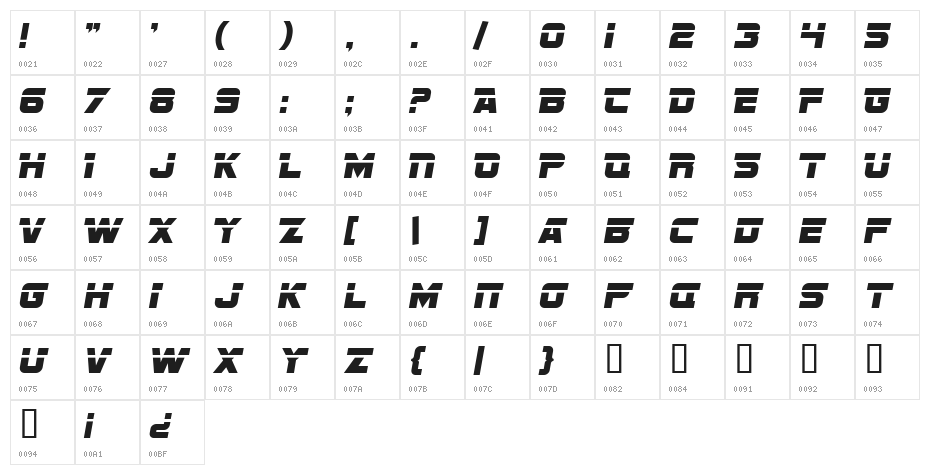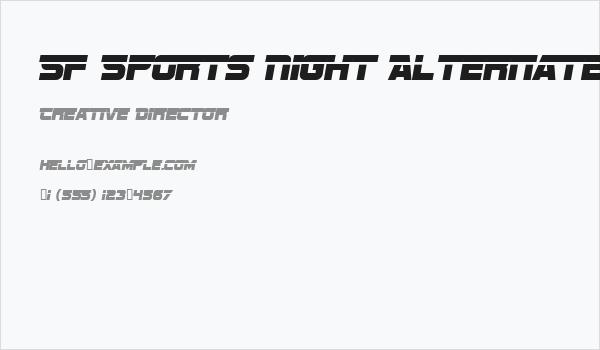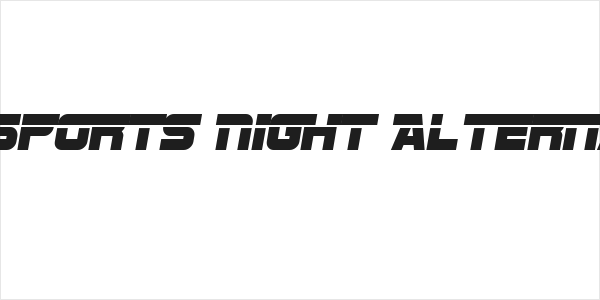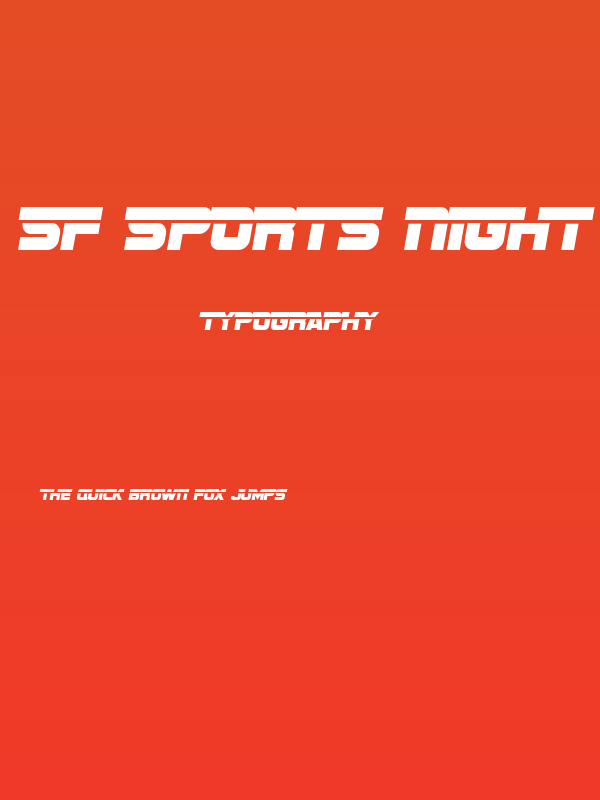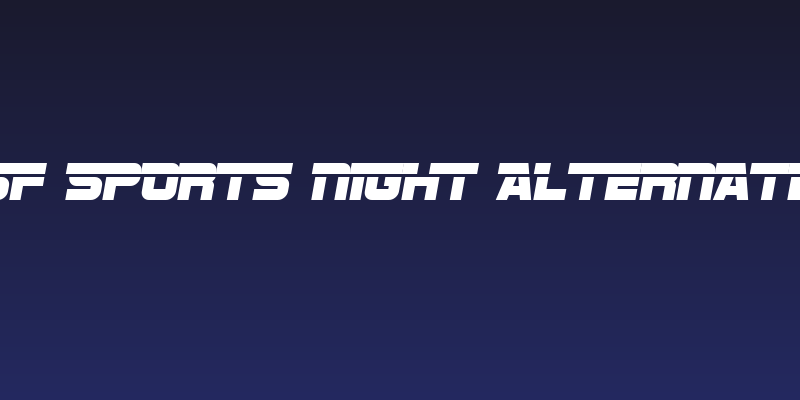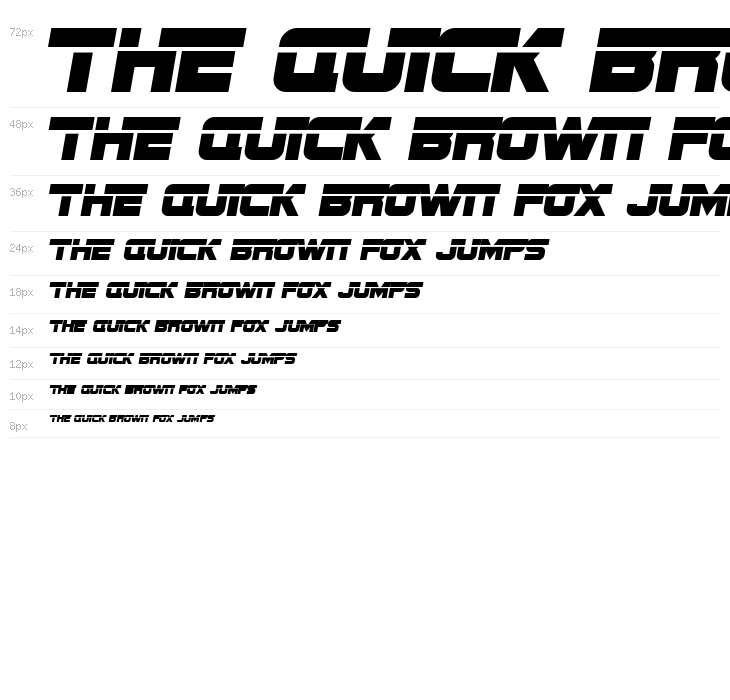
SF Sports Night Alternate Font
SF Sports Night Alternate Description
This font features a bold and dynamic design, characterized by its strong geometric shapes and a distinct forward-leaning slant that conveys a sense of motion and speed. The uppercase letters are crafted with sharp angles and a consistent stroke width, giving them a modern and sporty appearance. The numbers and special characters maintain this aesthetic, ensuring a cohesive look across all elements. The font's style is reminiscent of athletic branding, making it ideal for projects that require an energetic and impactful visual presence.
| Proposed Projects | Perfect for sports branding, event posters, team logos, and dynamic advertising campaigns. |